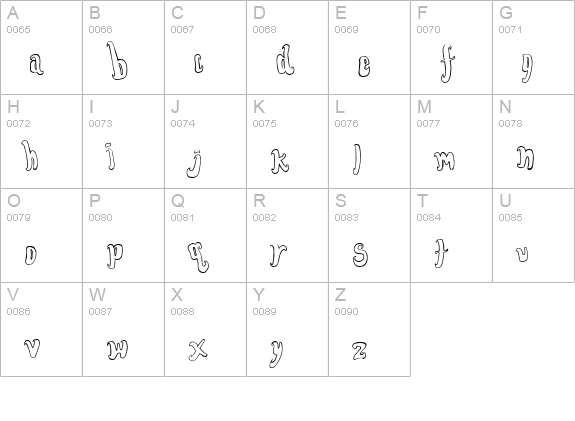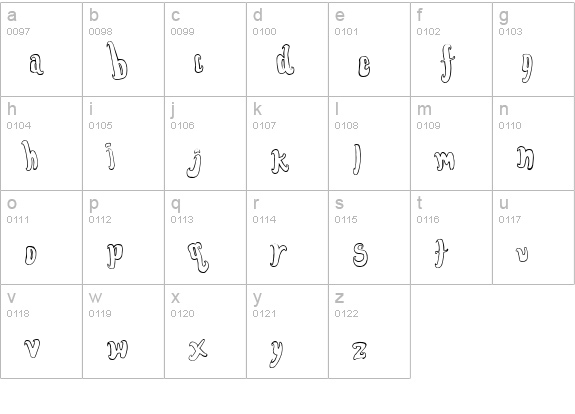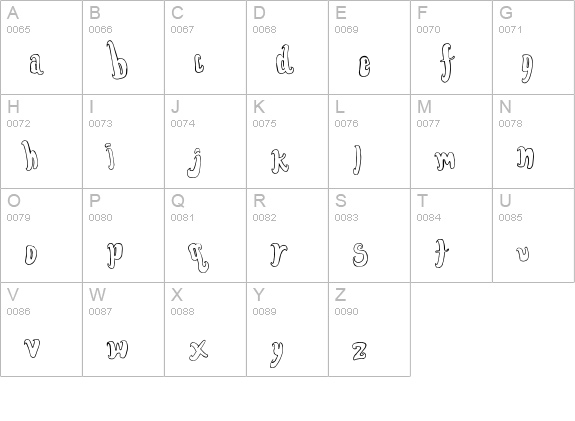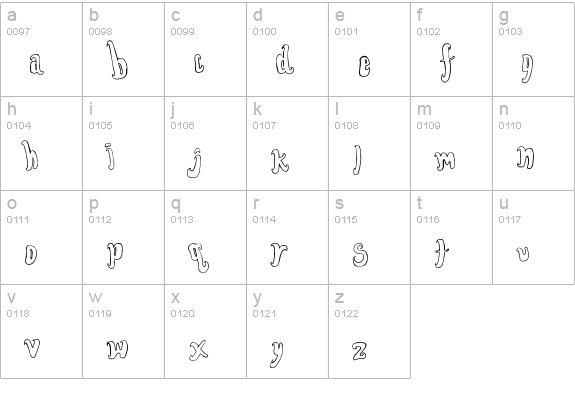
FontForTheDumped Outline Font Details
FontForTheDumped Outline is a stylish and modern font that adds a touch of sophistication to any design project. Its sleek outlines and clean lines make it perfect for a variety of applications, from branding to social media graphics. The font exudes a sense of elegance and professionalism that will elevate your designs to the next level. The best part? FontForTheDumped Outline is completely free to download at FontsMarket.com. This means you can access this high-quality font without having to spend a dime. Whether you're a graphic designer, a blogger, or a small business owner, this font is a valuable addition to your toolkit. So why wait? Head over to FontsMarket.com now and start using FontForTheDumped Outline in your projects today!